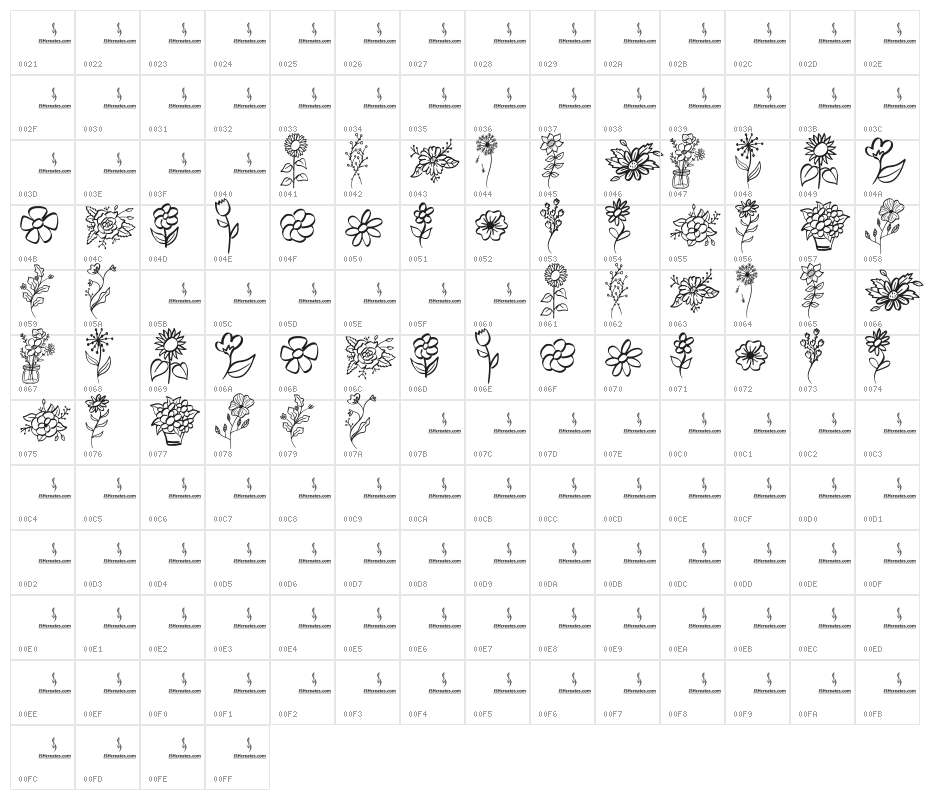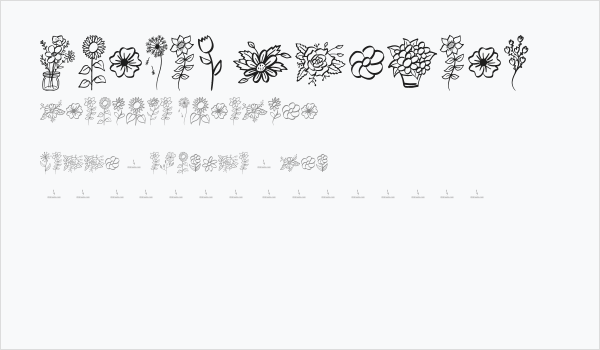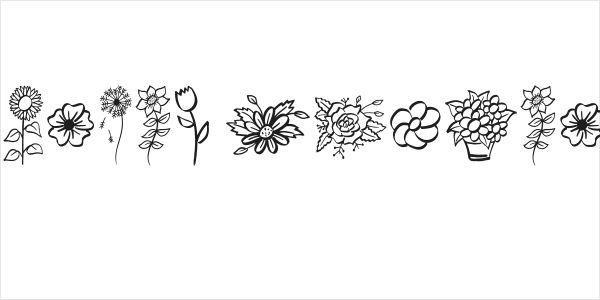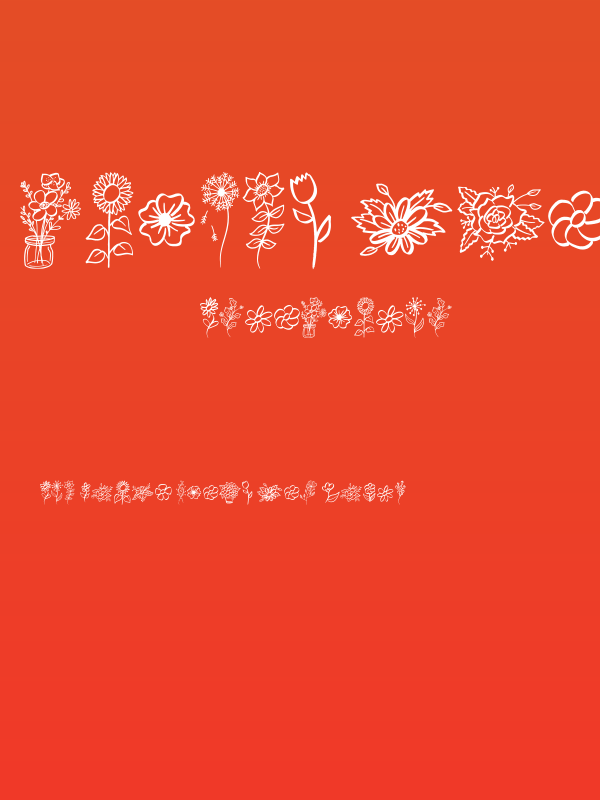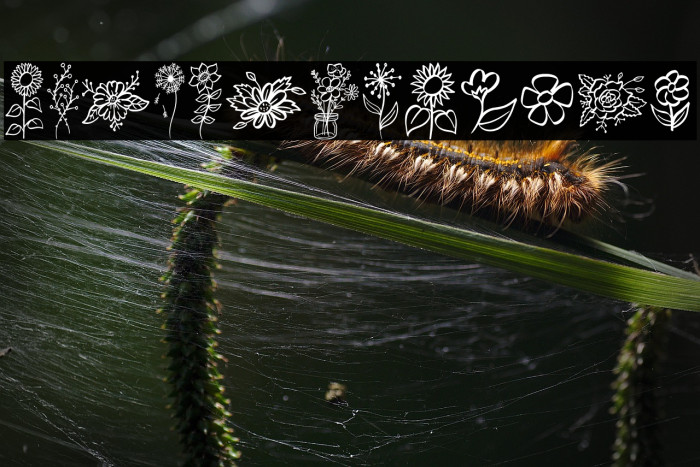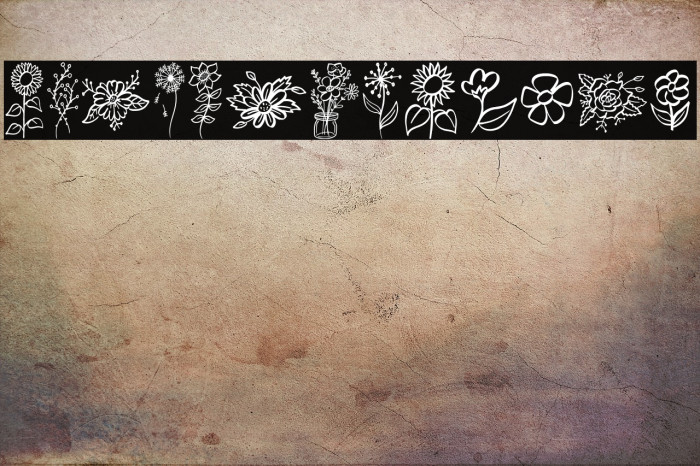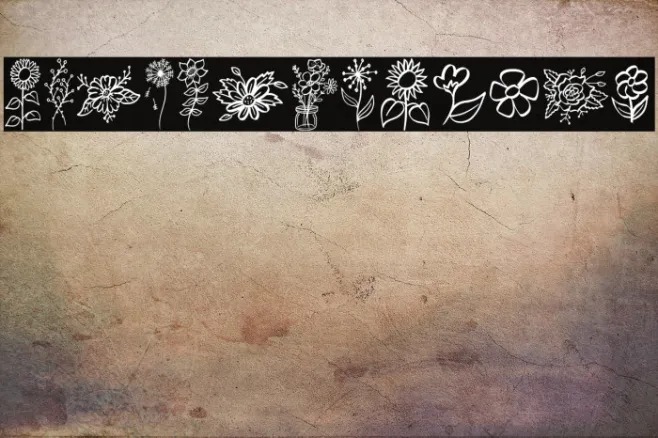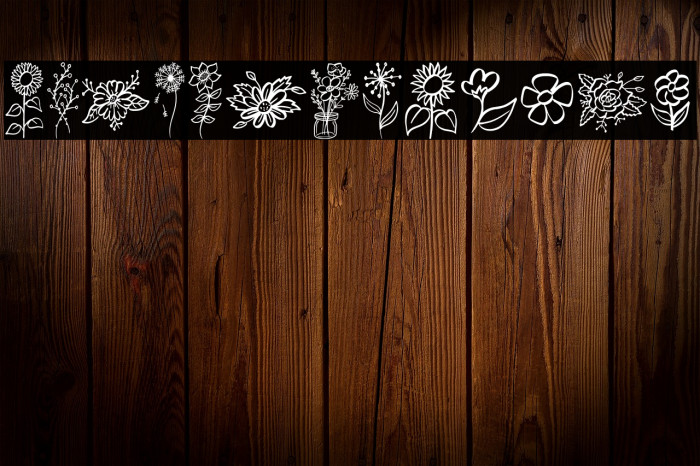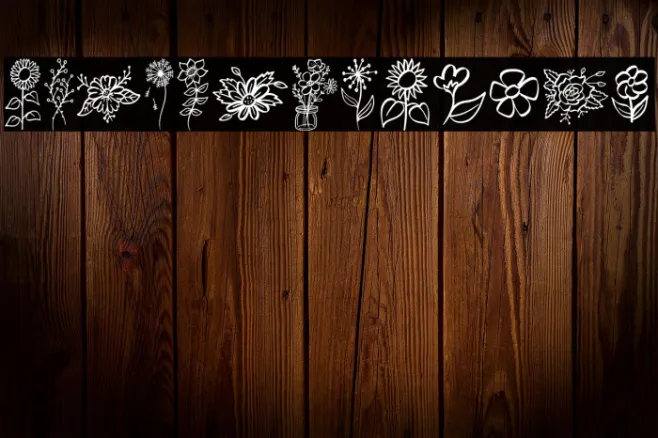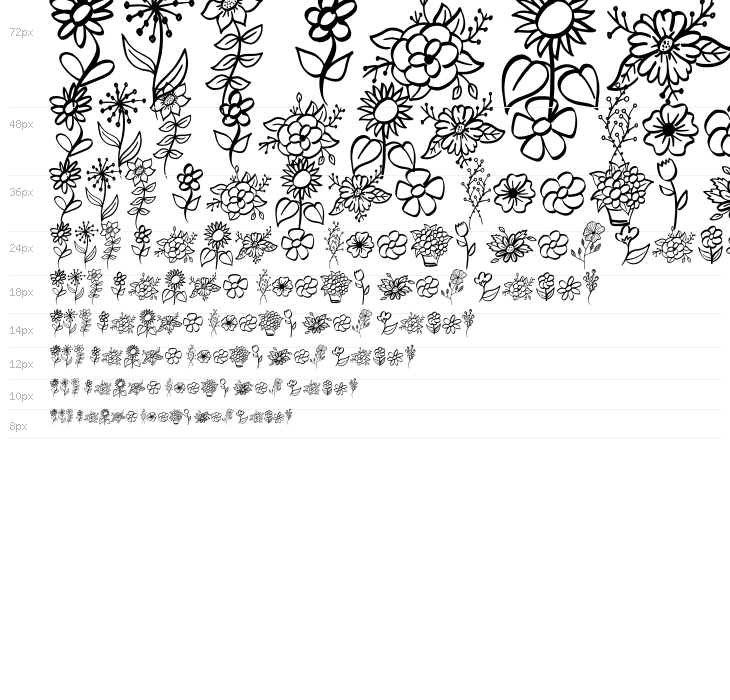
Garden Flowers Font
Garden Flowers Description
A decorative display set featuring hand-drawn, whimsical flower illustrations in a playful, outlined style. Each character is represented by a unique floral drawing, with varying levels of detail and organic, flowing lines. The overall look is informal and artistic, evoking a garden sketchbook aesthetic.
| Overall Style | Decorative, Hand-drawn, Whimsical |
| Use Case | Logos, Decorative headings, Craft projects, Stationery |
| Proposed Projects | Greeting cards, wedding invitations, scrapbooking, posters, branding for florists or garden shops, decorative packaging. |